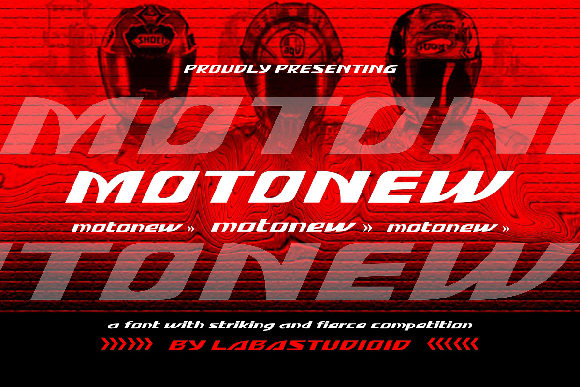
Introducing the MotoNew Font: A Revolutionary Masterpiece for Your Brand's Identity
Unleash your brand's true potential with MotoNew, a display font that embodies the essence of boldness, strength, and speed. This extraordinary creation by Labastudioid is more than just a font; it's an artistic masterpiece that will ignite your designs with unparalleled energy.
With MotoNew, your brand's message will not just be seen; it will be felt. Its robust and assertive letterforms demand attention, captivating your audience from the very first glance. Let MotoNew be the driving force behind your brand's identity, propelling it towards greatness.
MotoNew's dynamic personality is perfectly suited for a wide range of creative projects. Unleash its power in sports and racing designs, where its energetic strokes will bring a sense of exhilarating motion to your creations. Harness its strength in logos, posters, and headlines, where its commanding presence will leave a lasting impression.
But MotoNew's versatility extends far beyond these realms. It effortlessly adapts to a multitude of design styles, adding a touch of boldness and originality to everything it adorns. From sleek and contemporary designs to playful and retro-inspired aesthetics, MotoNew seamlessly blends in, becoming an integral part of your creative vision.
With MotoNew as your design companion, you'll embark on a journey of unlimited possibilities. Its unique charm will infuse your projects with a captivating energy, leaving your audience mesmerized. So, embrace the power of MotoNew, and watch as your designs transform into remarkable works of art.